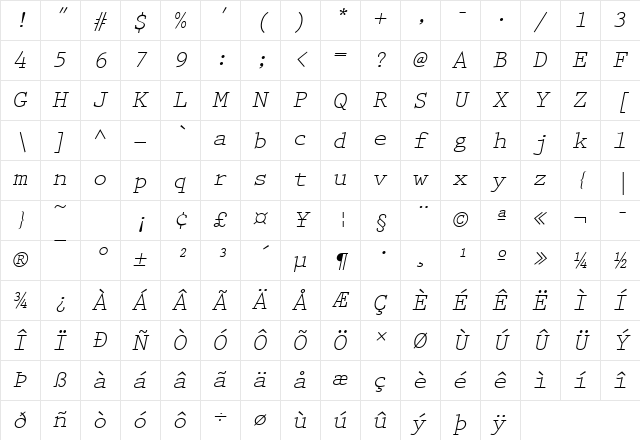
Prestige Becker Oblique
Complete Prestige Becker Oblique glyph index. Displaying only characters natively supported by Prestige Becker Oblique font.
Design Context for Prestige Becker
Prestige Becker is a composed and adaptable typeface that performs quietly and consistently across a wide range of design contexts. The slanted form adds forward momentum and visual energy.
Pro Tip: Use Prestige Becker for emphasis, pull quotes, and subheadings where its slanted energy can add rhythm to the layout.